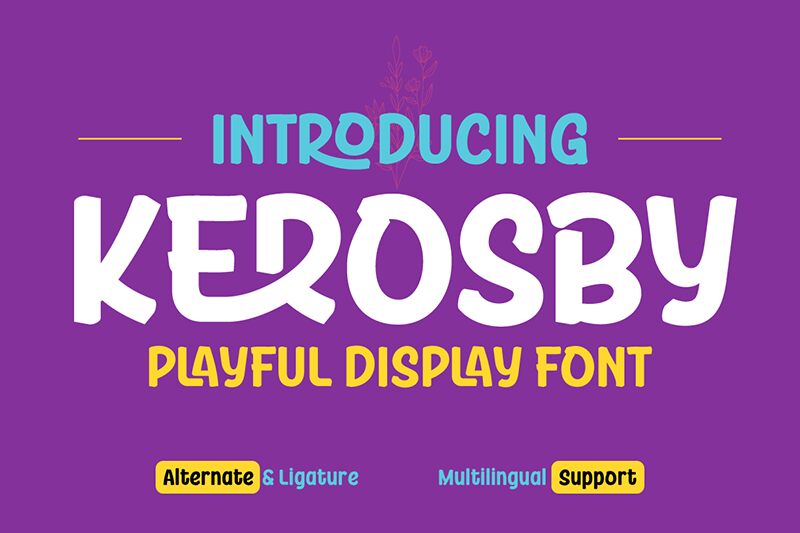
Kerosby font family by twinletter is a playful font characterized by its unique cartoon style, which embodies a sense of fun and informal energy. This font family contains 2 font styles and is perfect for projects where a contemporary youthful look is important. It’s inviting, animated, and inspired by the world of cartoons and comics. In the commercial world, customers and clients appreciate this flexible approach.
Use this font in branding and advertising for illustrations, themes, visual branding, title cards, and any other type of designs. All of your graphics connected to children and teens will look great if you experiment with Kerosby’s appealing effects.